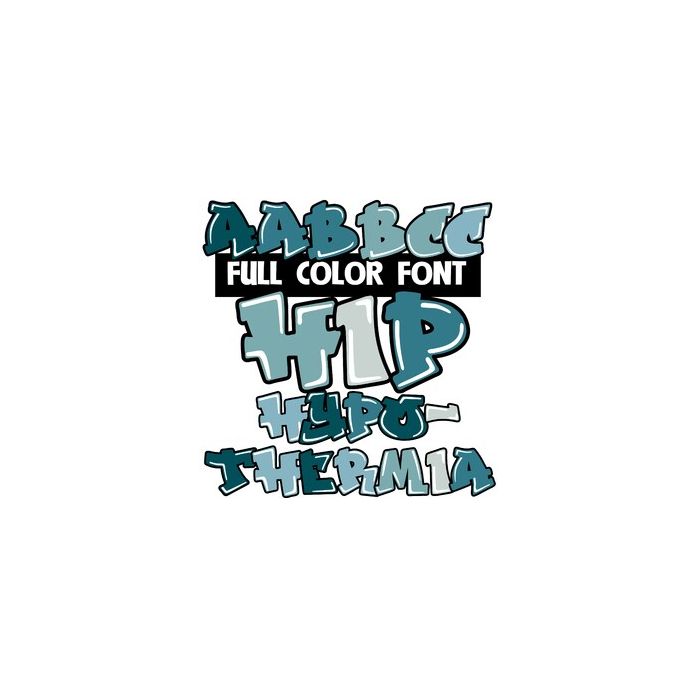
This full-color font features graffiti style lettering done in a winter color palette. This font works best for titles, displays, posters and more. Please note color fonts will show as black in non compatible programs. This font type is compatible with Silhouette Studio.